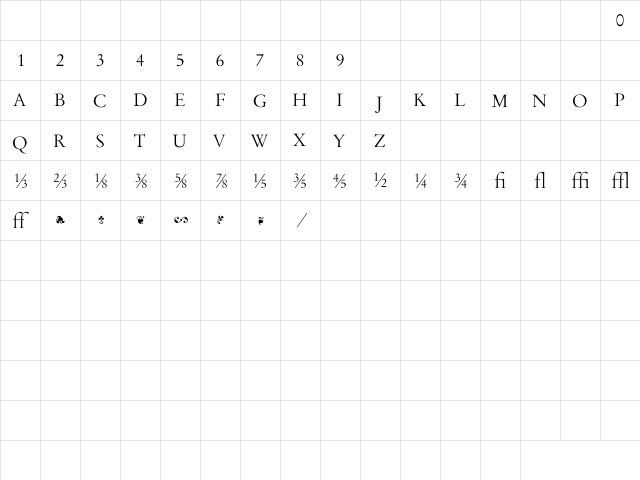
Garamand Classic Light Extras Regular
Design Context for Garamand Classic Light Extras Typeface
Garamand Classic Light Extras has the warm character of retro typography — evoking diners, record sleeves, and the golden age of print advertising. Its slender proportions lend an understated elegance to any composition.
Font Pairing: Combine Garamand Classic Light Extras with a simple slab or neutral sans — period-accurate companions reinforce the vintage feel without competing for attention.
Pro Tip: Use Garamand Classic Light Extras for headlines and pull quotes rather than body copy — its personality is best appreciated in short, focused bursts.